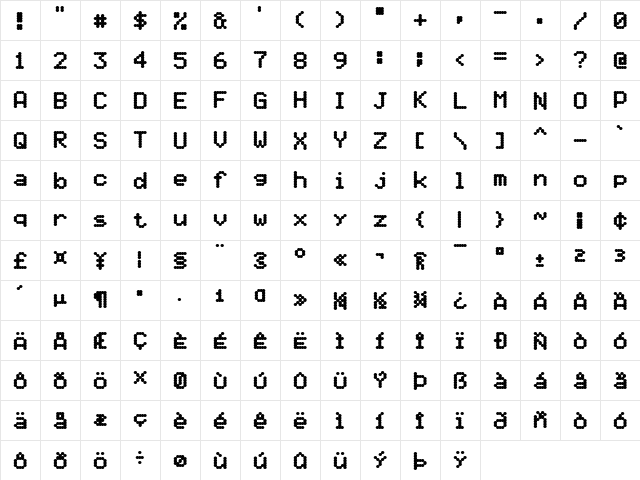
5by7 Bold
| Foundry | Peter Wiegel |
Design Context for 5by7 Typeface
5by7 takes a measured approach to typography — its balanced proportions and neutral character make it a reliable workhorse for both digital and print work. Its bold stroke weight gives it real presence on the page.